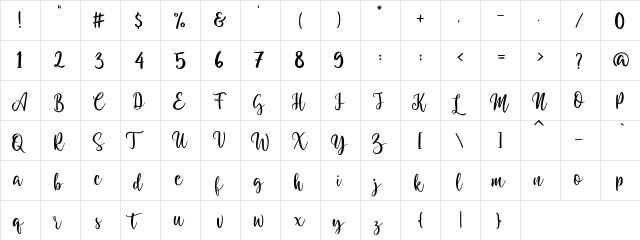
Granotta Regular
Design Context for Granotta Typeface
Granotta is a composed and adaptable typeface that performs quietly and consistently across a wide range of design contexts.